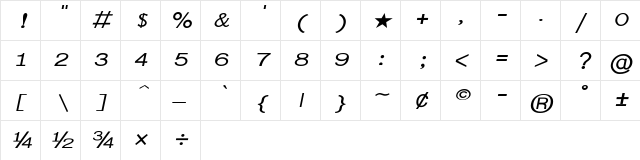
TAU-Barathi BoldItalic Free Font
TAU-Barathi BoldItalic
Complete TAU-Barathi BoldItalic glyph index. Displaying only characters natively supported by TAU-Barathi BoldItalic font.
Design Context for TAU-Barathi
TAU-Barathi is a composed and adaptable typeface that performs quietly and consistently across a wide range of design contexts. The slanted form adds forward momentum and visual energy. Its bold stroke weight gives it real presence on the page.
Pro Tip: Use TAU-Barathi for emphasis, pull quotes, and subheadings where its slanted energy can add rhythm to the layout.